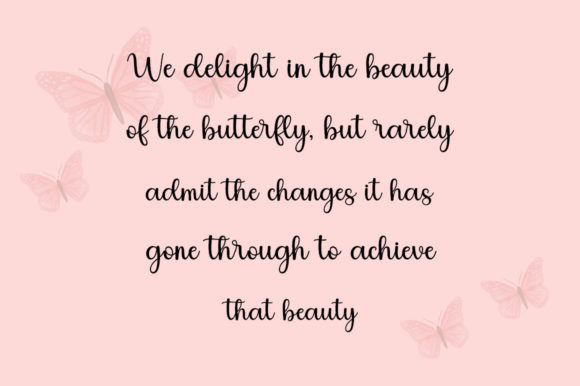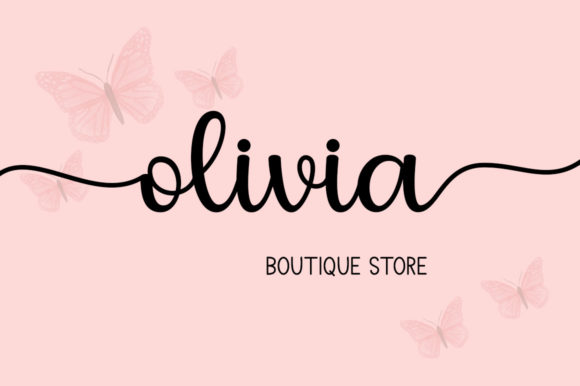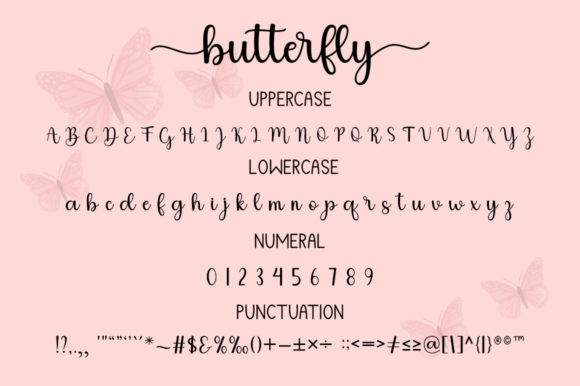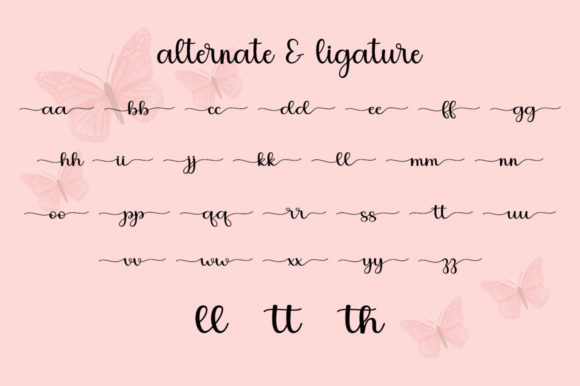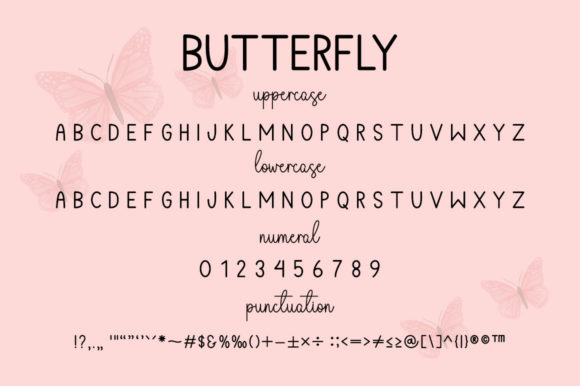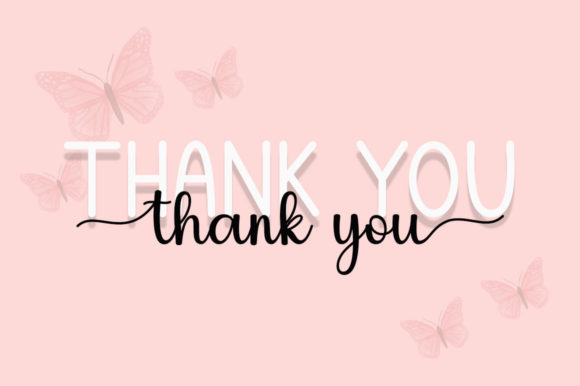
Introducing the Beautiful Butterfly Font: Elevate Your Designs with a Lovely Duo
Are you on the hunt for a font that can add a touch of whimsy and fun to your designs? Look no further than the Butterfly Font, a lovely duo font that combines a sans serif and script font to create a versatile and eye-catching pairing. In this article, we’ll dive into the world of Butterfly Font, exploring its features, applications, and benefits for designers and crafters.
What is Butterfly Font?
Butterfly Font is a unique and charming font duo that consists of a sans serif font and a script font. This beautiful combination allows designers to create stunning visual effects, from elegant headlines to playful greeting cards. The sans serif font provides a clean and modern base, while the script font adds a touch of elegance and sophistication.
Key Features of Butterfly Font
- Versatile: Butterfly Font is perfect for a wide range of applications, from digital designs to print materials, such as greeting cards, posters, and flyers.
- PUA Encoded: This font is PUA (Private Use Area) encoded, which means that you can easily access all the glyphs and swashes, giving you maximum creative control.
- Fun and Playful: This font is guaranteed to add a fun feel to your designs, making it perfect for projects that require a lighthearted touch.
Applications of Butterfly Font
Butterfly Font is an incredibly versatile font that can be used in a variety of design projects, including:
- Greeting Cards: Create beautiful and unique greeting cards for special occasions, such as birthdays, weddings, and holidays.
- Headlines: Use Butterfly Font to create eye-catching headlines for posters, flyers, and digital ads.
- Branding: This font is perfect for branding projects that require a playful and elegant touch, such as logos, packaging, and website designs.
- Social Media Graphics: Use Butterfly Font to create engaging social media graphics, such as Instagram posts and Facebook banners.
Butterfly Font offers a range of benefits for designers and crafters, including:
- Time-Saving: With its PUA encoding and easy-to-use design, Butterfly Font saves you time and effort, allowing you to focus on the creative aspects of your project.
- Unique Designs: This font allows you to create unique and eye-catching designs that stand out from the crowd.
- Flexibility: Butterfly Font is perfect for a wide range of design projects, giving you the flexibility to experiment with different styles and applications.
Tips and Tricks for Using Butterfly Font
Here are some tips and tricks for getting the most out of Butterfly Font:
- Experiment with Pairings: Try pairing Butterfly Font with other fonts to create unique and interesting visual effects.
- Play with Swashes: Use the swashes and glyphs to add a touch of elegance and sophistication to your designs.
- Keep it Simple: Don’t be afraid to keep things simple and use Butterfly Font as a clean and modern sans serif font.